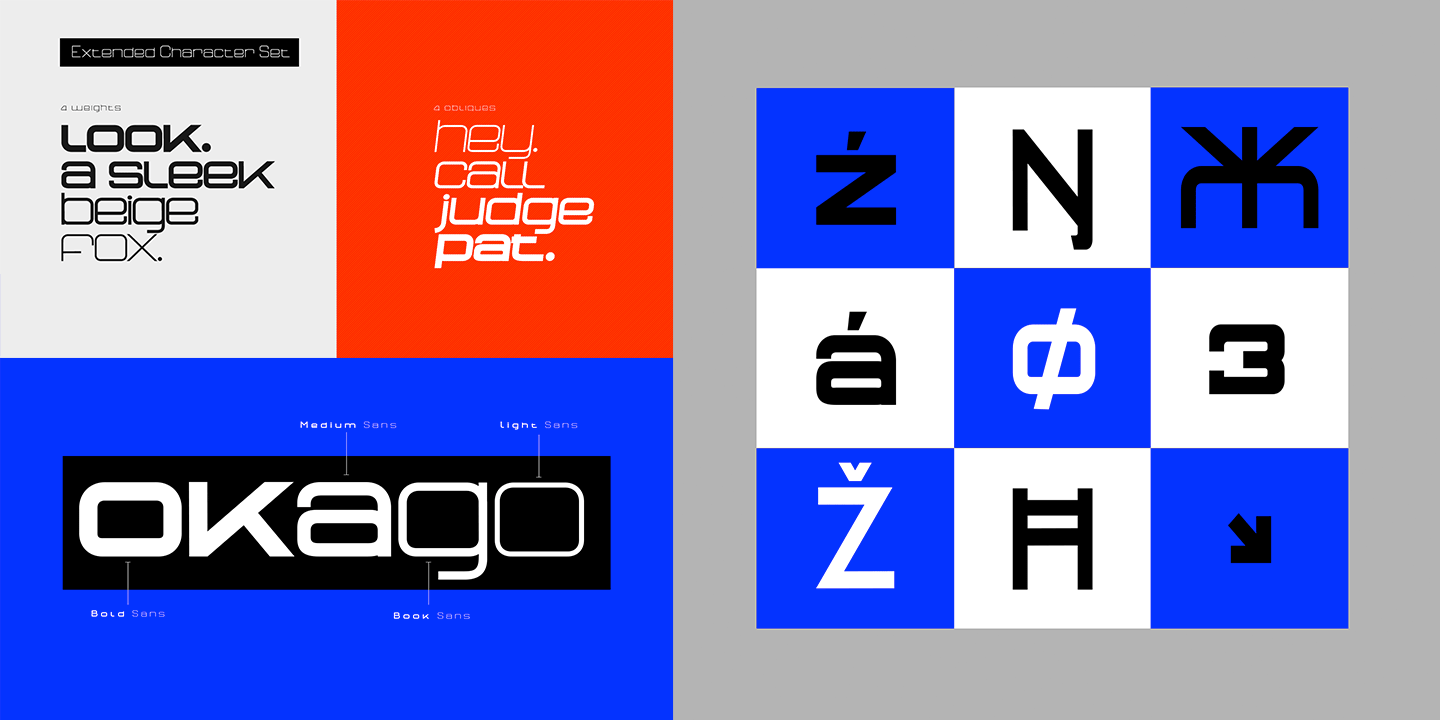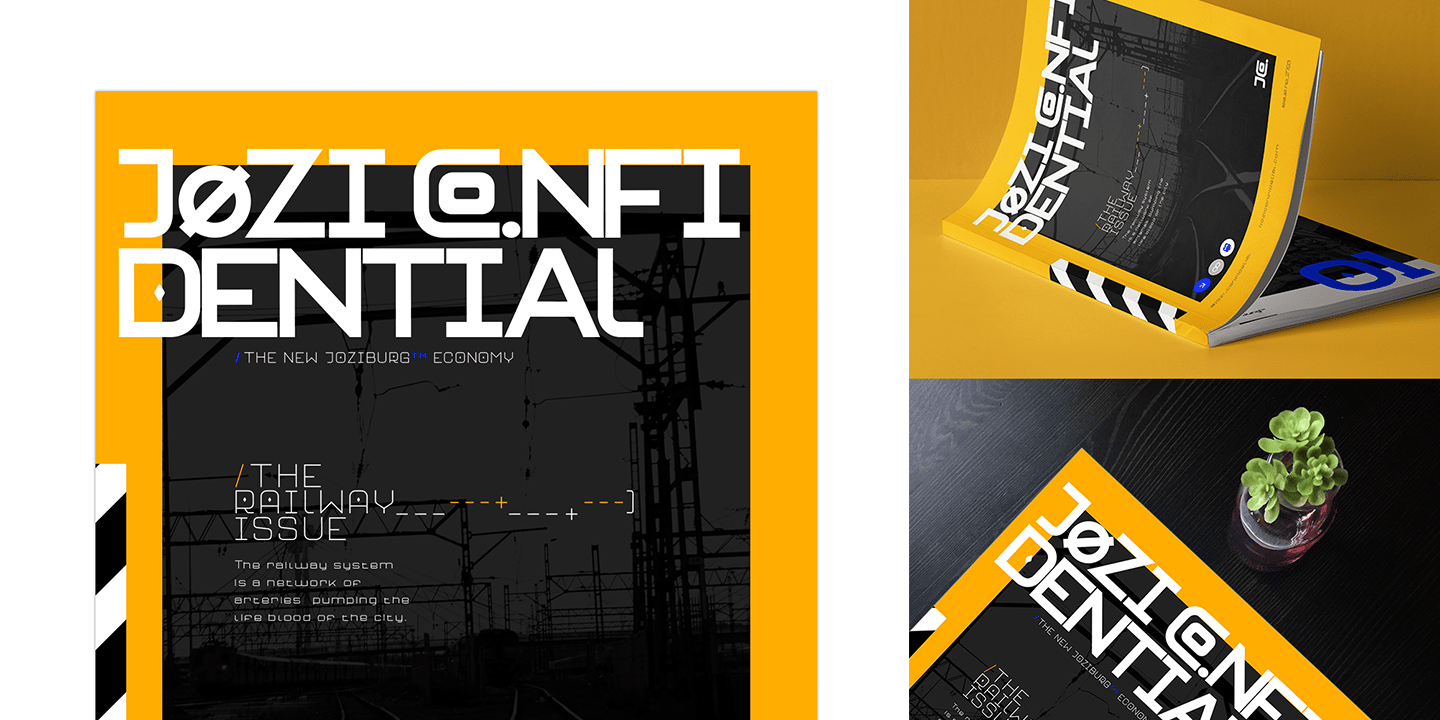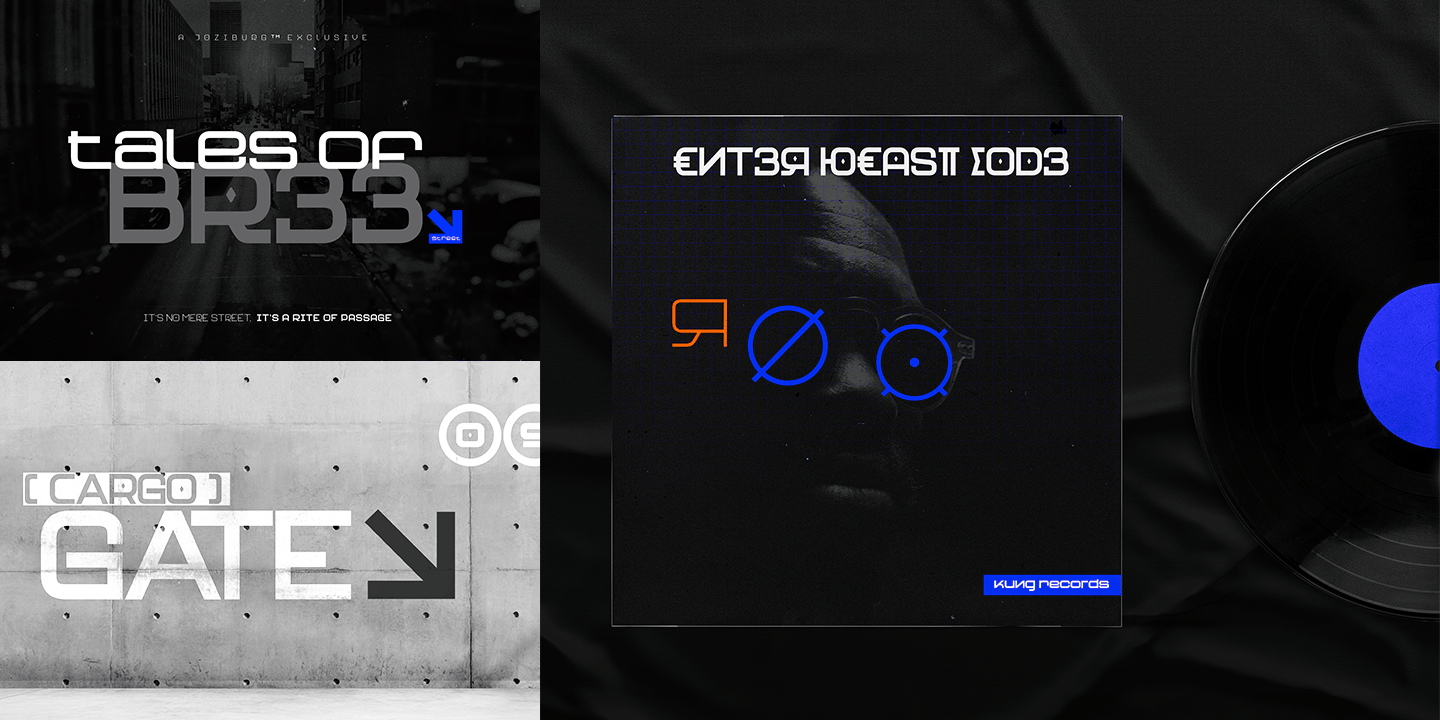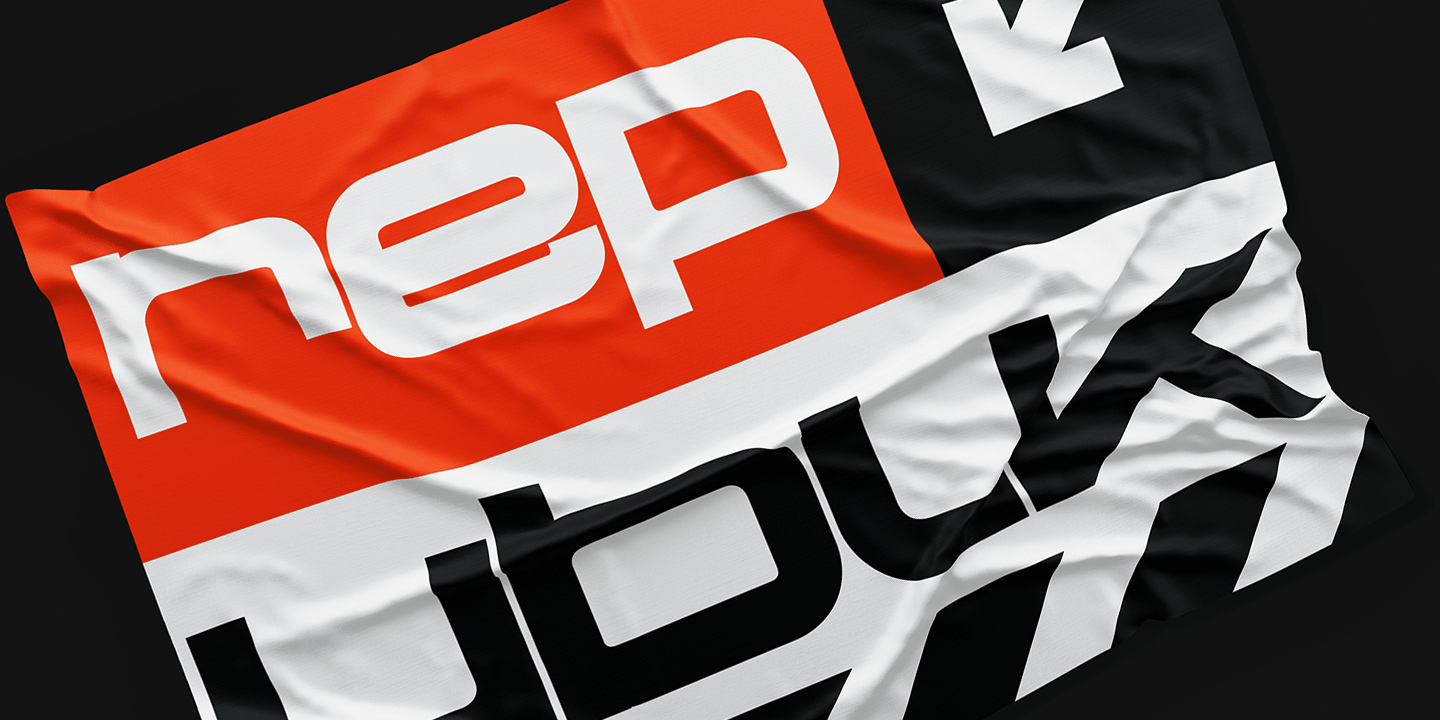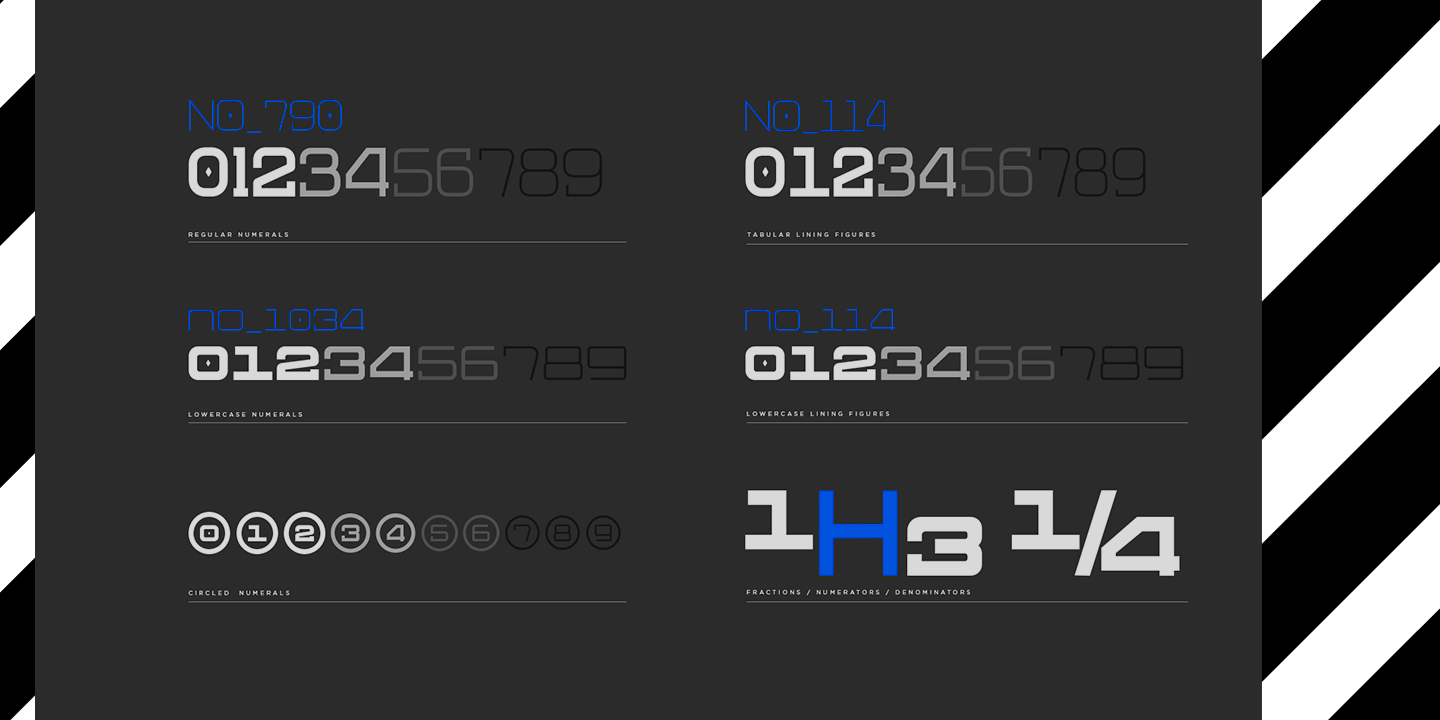
Neo Afrique Sans | Modern Art Deco
Introducing Neo Afrique Sans: Embrace the Future with a Touch of Elegance
Discover Neo Afrique Sans, a captivating neo-futuristic typeface infused with modern decorative elements. This remarkable font emerged from the evolution and refinement of the original Durango Sans, developed some time ago.
At its core, Neo Afrique remains true to its predecessor, driven by the fusion of two distinct aesthetics. First, the sleek and geometric neo-futuristic style, reminiscent of the iconic Blade Runner movie. Second, the graceful and flourishing decorative forms inspired by the timeless art nouveau and the later lubalinesque aesthetics.
Neo Afrique Sans boasts a plethora of remarkable features, making it a font of endless possibilities. Explore alternate characters, stylish arrows, meticulously crafted ligatures, and a variety of numeral types for your design needs. With extended language support, you can now effortlessly communicate your message across borders.
Choose from four distinctive styles to suit your project's tone:
- Light: For an airy and delicate touch.
- Book: The perfect balance between light and bold.
- Medium: A versatile choice for a strong, yet refined impact.
- Bold: Make a bold statement with this powerful style.
Unlock the true potential of Neo Afrique with its exceptional Open Type Features:
- Up to 5 Stylistic Alternates per glyph, unleashing your creativity.
- Uppercase and lowercase Normal & Tabular Numerals for seamless numerical representation.
- Special use circled numerals, adding a unique flair to your designs.
- Fractions and Numerators/Denominators, ensuring precision in your typographical creations.
- Alternate Symbols to elevate your visual language.
- Arrows that guide your audience's gaze.
Embrace Neo Afrique Sans's extensive Latin and Cyrillic character support,
catering to various writing systems:
Latin Character Support:
- Basic Latin Characters
- Western European Characters
- Central European Characters
- South Eastern European Characters
Cyrillic Character Support:
- Basic Cyrillic Characters
- Bulgarian Cyrillic Characters
- Bulgarian Italic Cyrillic Characters
- Historic Bulgarian Cyrillic Characters
- Serbian Cyrillic Characters
- Macedonian Cyrillic Characters
- Serbian Italic Characters
- Ukrainian Characters
Revolutionize your design projects with Neo Afrique Sans, where the future meets elegance. Unleash your creativity and captivate your audience with this extraordinary typeface.